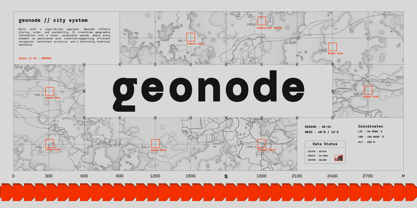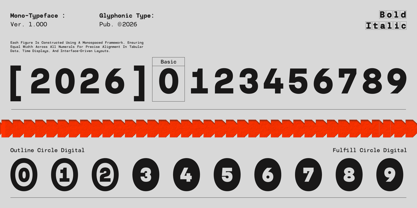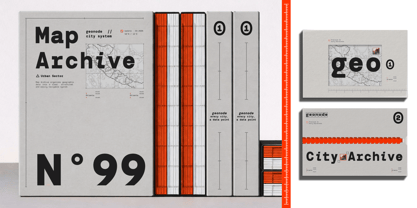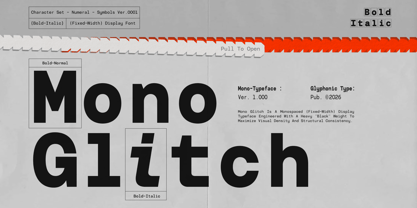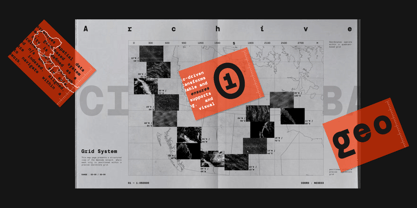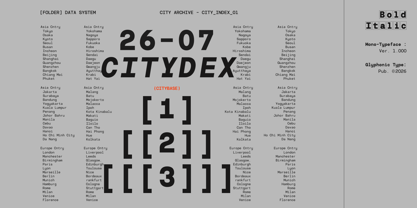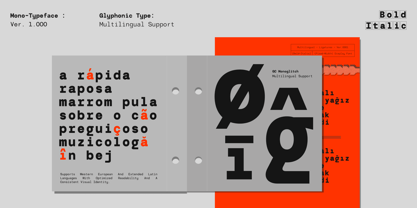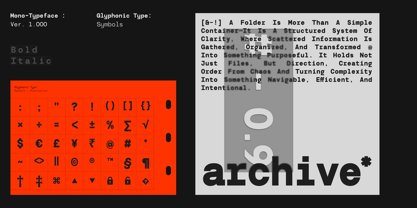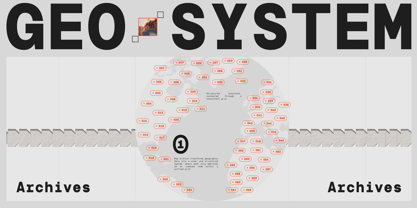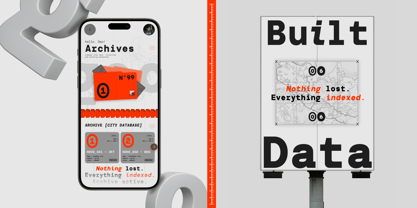
GC Monoglitch
GC Monoglitch – Modern Monospace is a bold modern monospace typeface engineered for precision, consistency, and contemporary digital aesthetics. Designed with fixed-width construction and clean geometric proportions, GC Monoglitch delivers a structured typographic voice that feels technical, confident, and highly functional across modern creative applications.
Built on the principles of true monospacing, every character occupies identical horizontal space, creating a balanced rhythm and exceptional alignment. Its bold weight, minimal details, and refined geometry make GC Monoglitch ideal for technology branding, coding-inspired graphics, UI interfaces, editorial layouts, posters, and futuristic visual systems where clarity and structure are essential.
Despite its technical foundation, GC Monoglitch maintains a modern and approachable personality. The combination of heavy strokes, clean curves, and fixed-width precision produces a strong visual presence while ensuring excellent readability in both print and digital environments.
Features :
* Modern Monospace Typeface
* True Fixed-Width Character Set
* Bold Geometric Construction
* Clean & Structured Letterforms
* High Readability and Consistent Alignment
* Perfect for Coding, UI, Posters & Editorial
* Suitable for Branding, Technology & Digital Design
* Multilingual Support (170+ Languages)
GC Monoglitch delivers modern precision — a bold monospace typeface crafted for structured layouts, digital creativity, and contemporary visual communication.